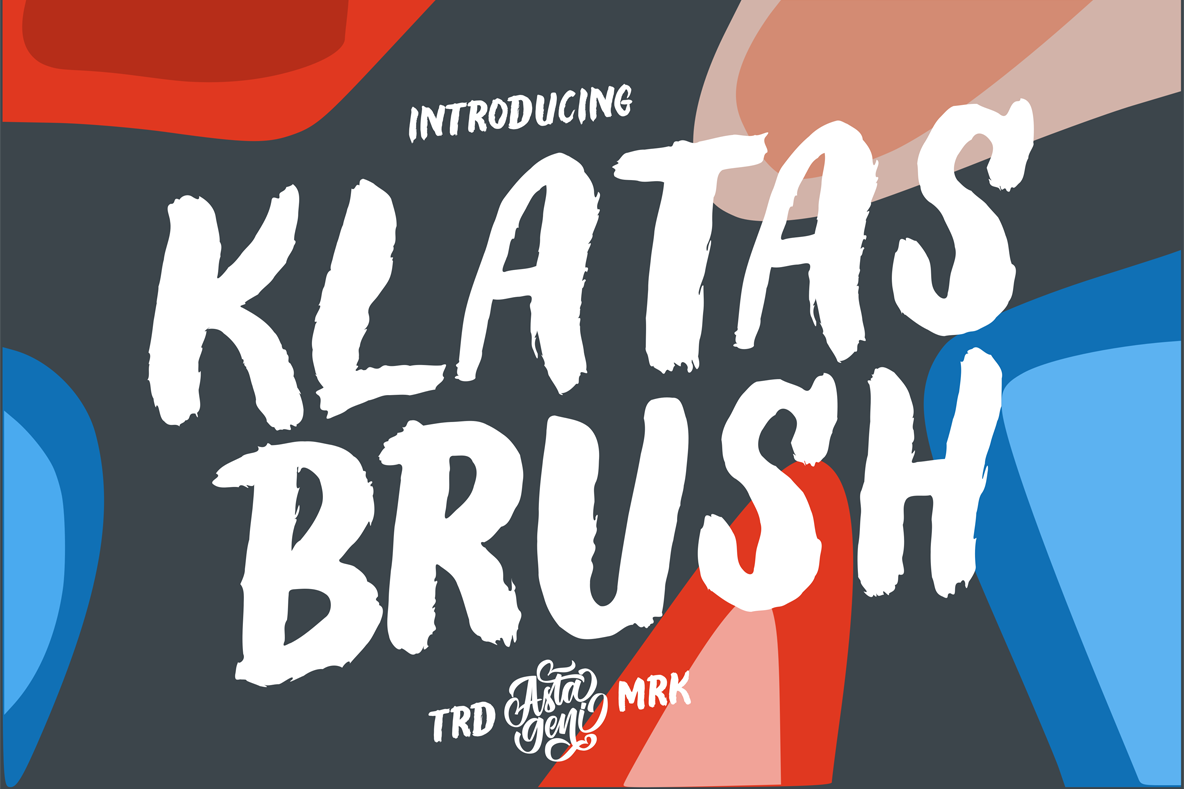
Created By Astageni
Klatas Brush
introducing our last brush font collection
called klatas brush
klatas brush is very suitable for a quote, t-shirt, etc